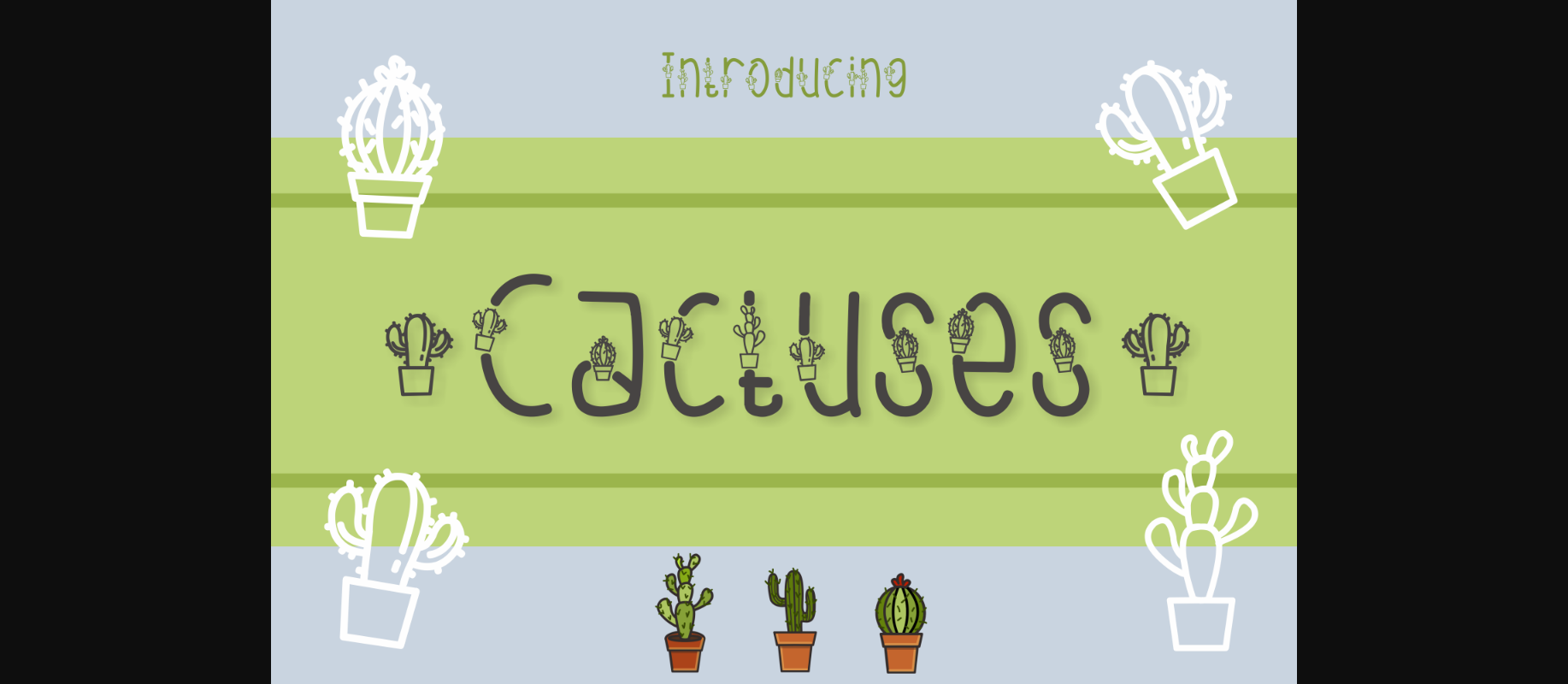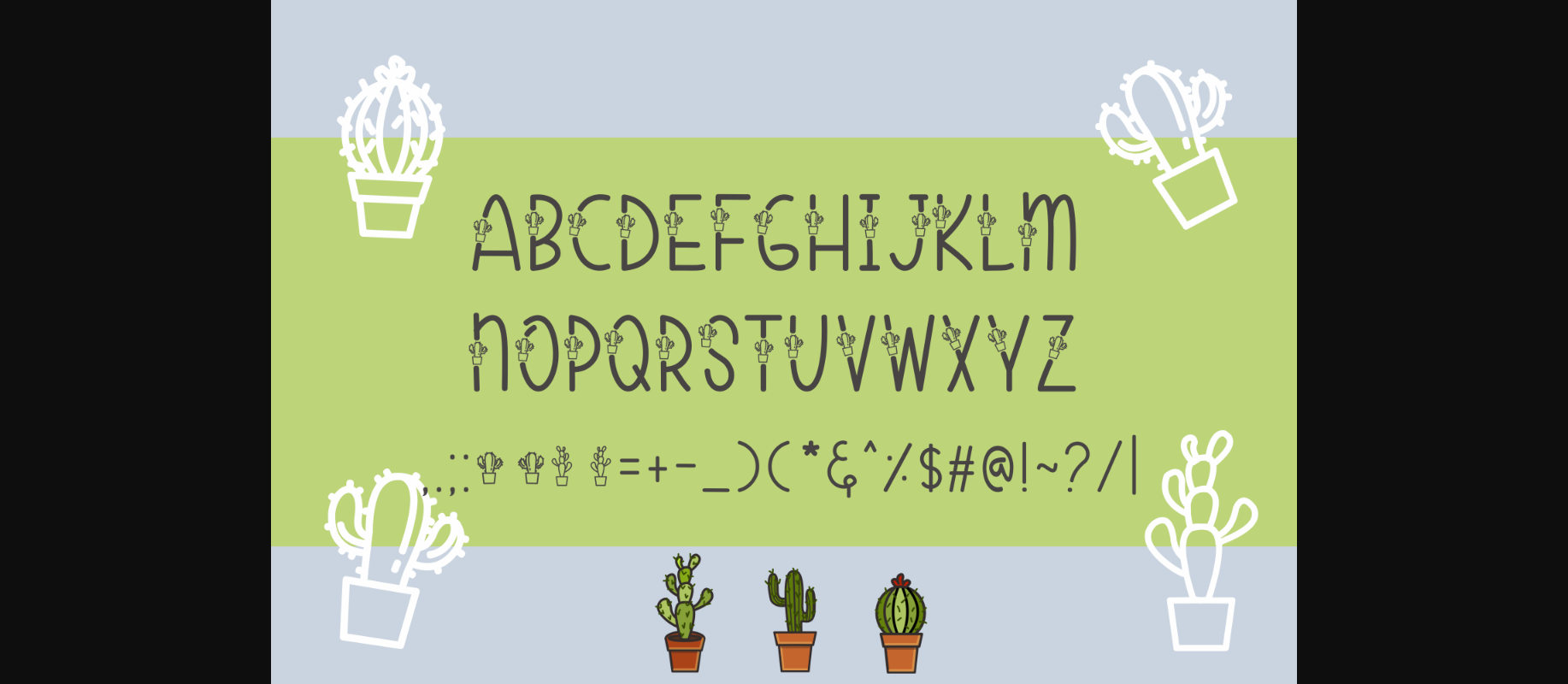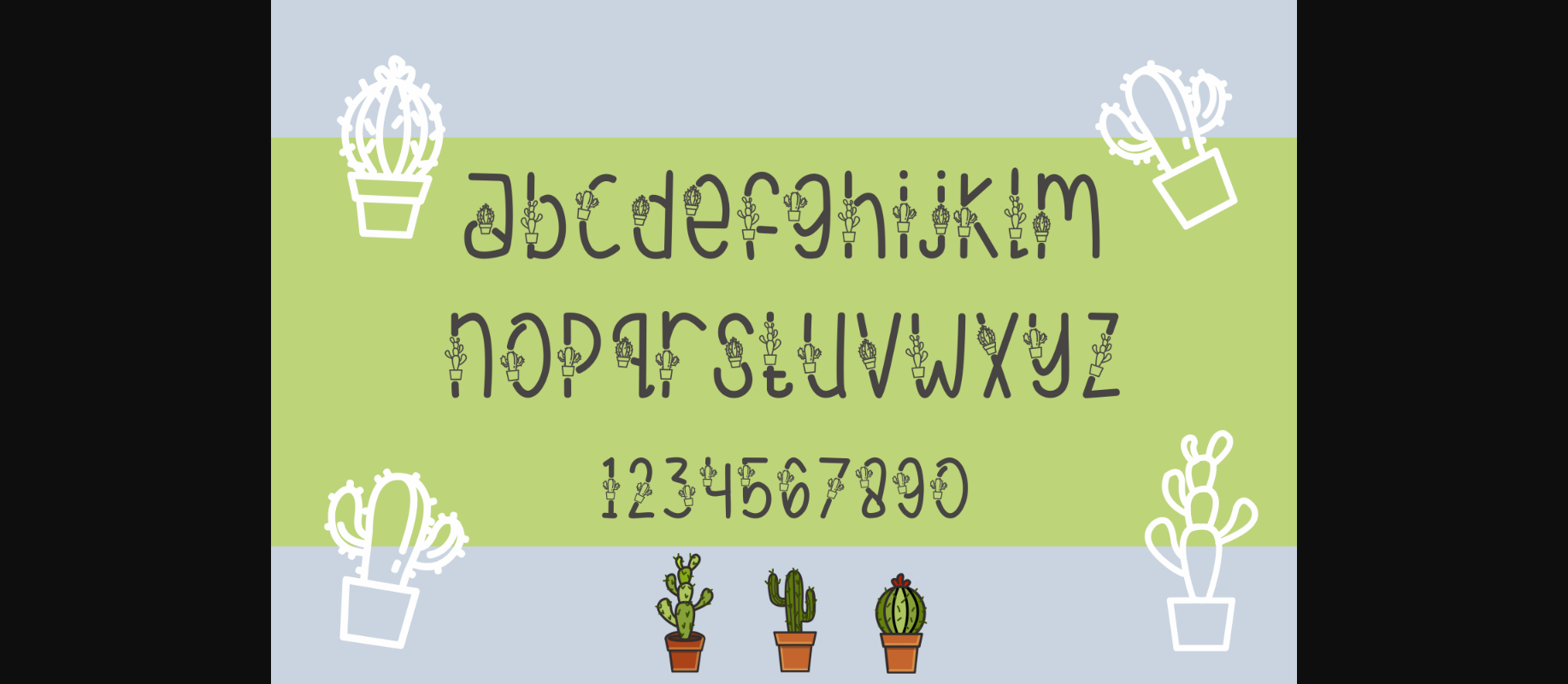
Cactuses Font
About Cactuses Font
Cactuses is an incredibly unique and interesting decorative font, featuring cactuses as ornaments. Fall in love with its simple yet distinct style, and create spectacular designs!